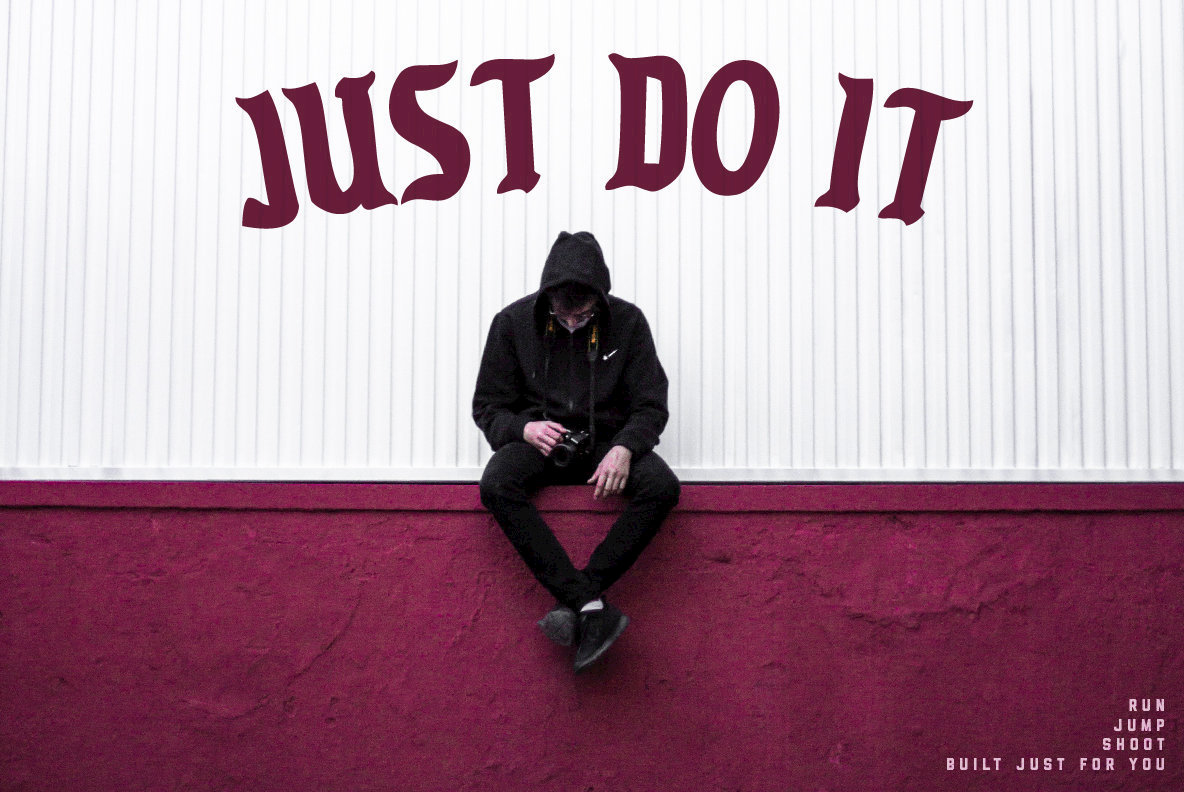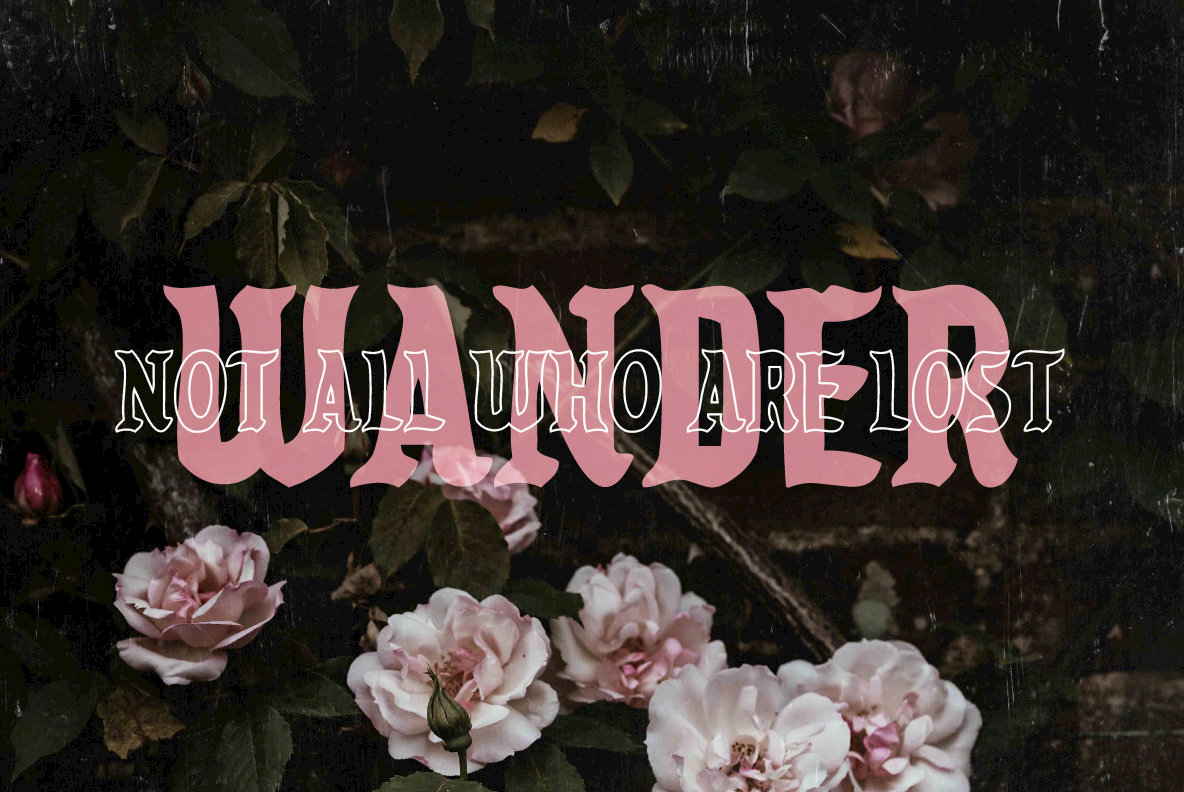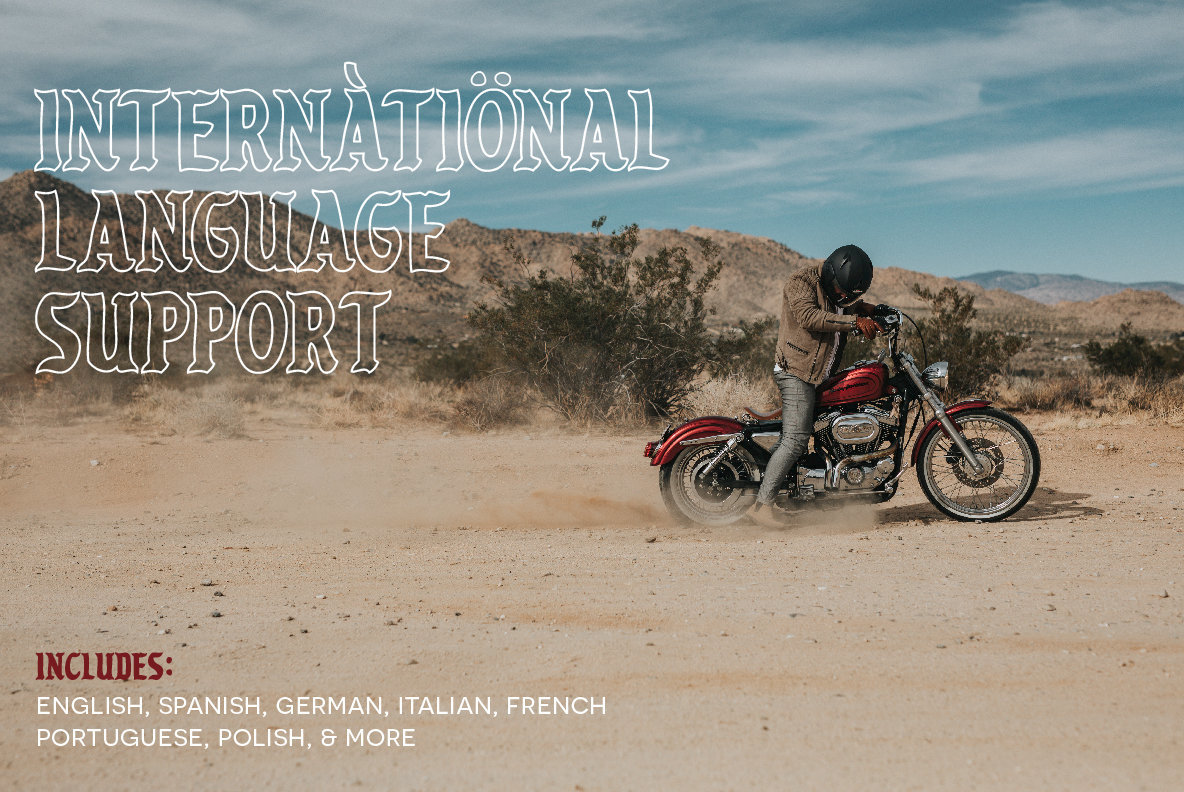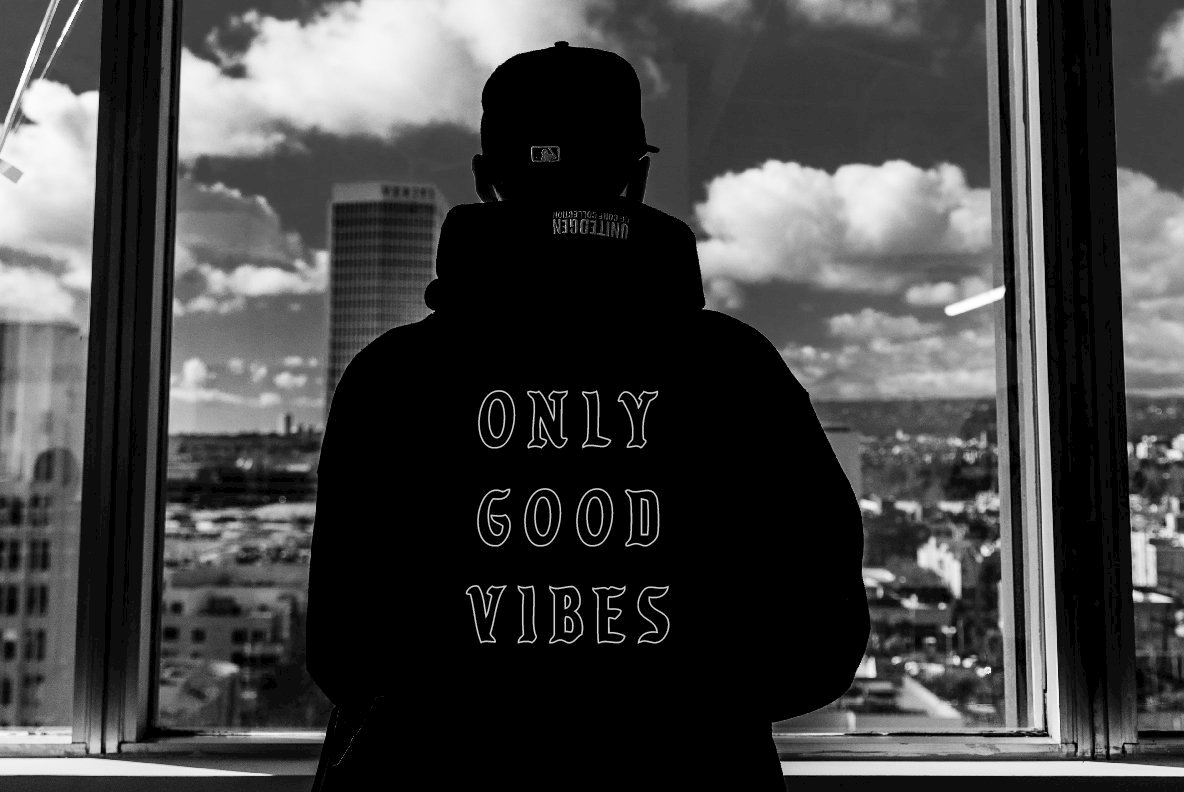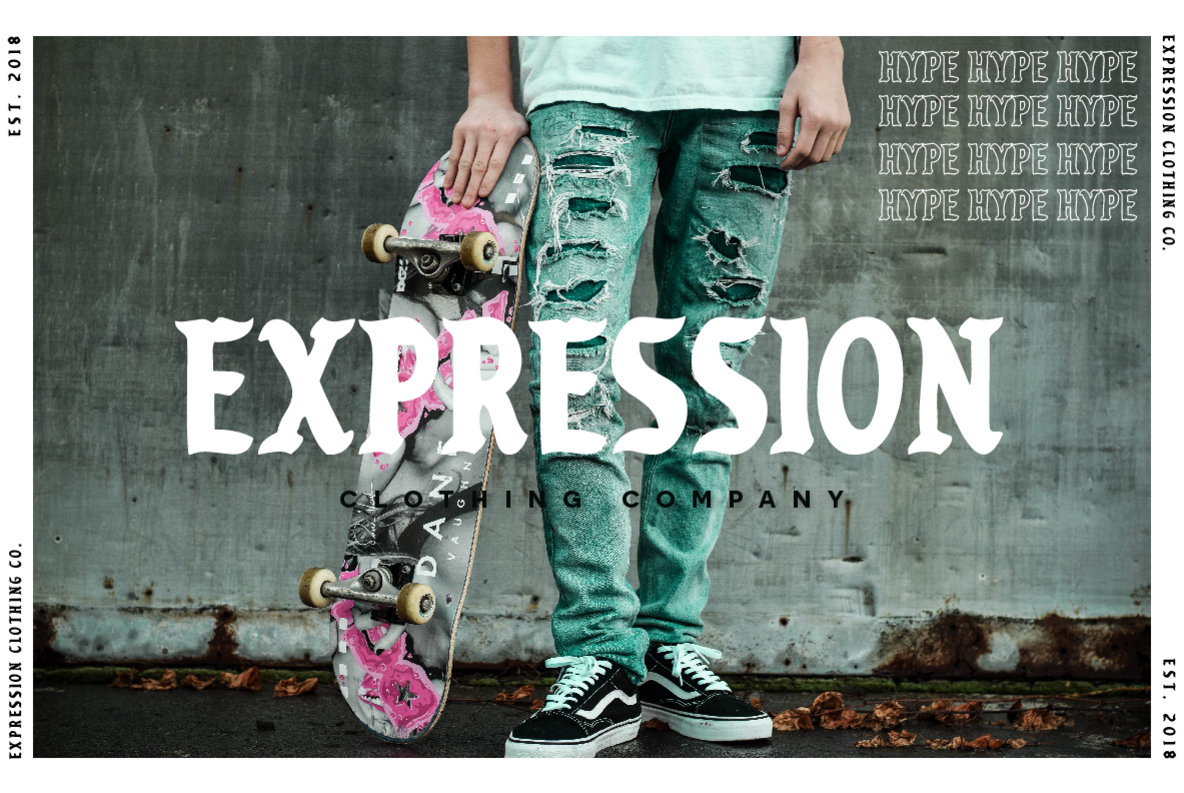
Forsaken is a new handcrafted typeface perfect for logos, prints, apparel, and more! Give all your designs that vintage feel everyone is looking for. Also this font pack comes with both a fill and outline version, giving you tons of layout options to play with.
- Forsaken Regular
- Forsaken Outline
- Over 50 Bonus Glyphs including International Language Support